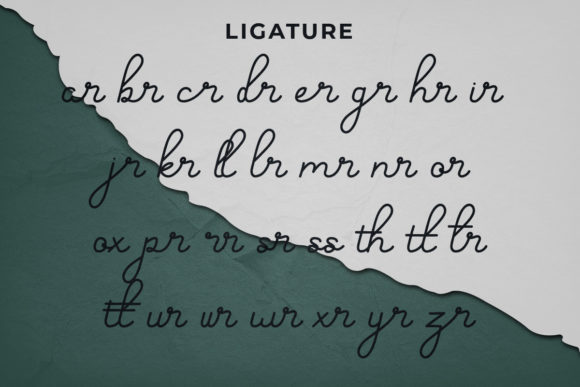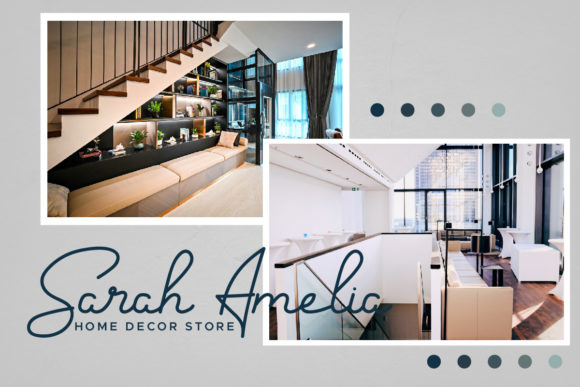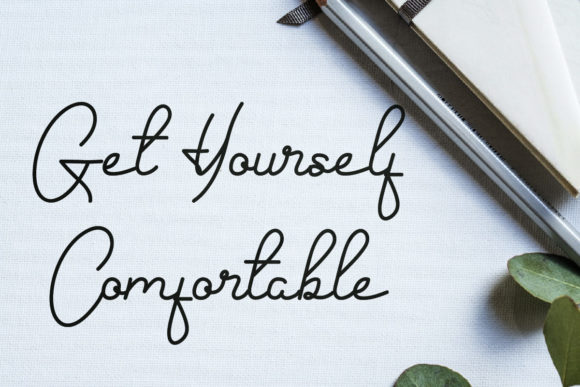
Adding a Personal Touch with Hand Signature Font
Have you ever been inspired by a beautiful handwritten note or a personal letter? The way the words flow effortlessly, creating a sense of intimacy and warmth, is truly captivating. This is exactly what the Hand Signature Font aims to capture – the elegance and uniqueness of a handwritten signature.
This beautiful, flowing handwritten font is designed to add a personal touch to your designs. With its delicate and well-balanced characters, it’s perfect for a wide range of applications, from invitations and greeting cards to digital products and marketing materials.
What makes Hand Signature Font truly valuable for designers is its ease of use. PUA encoded, it allows you to access all of the glyphs and swashes with ease, giving you the flexibility to create unique and customized designs that reflect your personal style.
Hand Signature Font Key Features
- Unique Characteristics: This font features a unique, handwritten style that mimics the look of a genuine signature, making it perfect for personal and professional use.
- Font Style: Hand Signature Font offers a range of styles, including bold, italic, and regular, allowing users to customize their signatures to suit their preferences.
Hand Signature Font Review
Overall, I think Hand Signature Font has a lot of potential, but it’s not without its quirks. Here’s what works well:
- ✨ The font’s unique, handwritten feel is perfect for creative projects that need a touch of personality.
- ✨ The font is highly customizable, with a wide range of options for adjusting the style and layout.
- ✨ The font is compatible with most popular design software, including Adobe Creative Cloud and Canva.
However, there are a few limitations that might be a deal-breaker for some designers:
- ⚠️ The font can be a bit too whimsical for more formal or professional projects, and may not be suitable for corporate or business applications.
- ⚠️ The font’s handwritten feel can make it difficult to read at smaller font sizes, especially for older users or those with vision impairments.
- ⚠️ The font’s customization options can be overwhelming, especially for designers who are new to font customization.
Overall, I think Hand Signature Font is a great choice for designers who want to add a touch of personality to their projects. However, it’s not a one-size-fits-all solution, and designers should carefully consider their project’s needs and audience before using this font.
To get the most out of the Hand Signature Font, experiment with different font sizes, styles, and effects to create a unique and personalized signature.
The Hand Signature Font is commonly used for:
- Creating digital signatures for documents and emails.
- Designing business cards and letterheads.
- Adding a personal touch to social media profiles and websites.
Alternatives to Hand Signature Font
Great Vibes is a beautiful, cursive script font that can be used for various design purposes. It’s ideal for invitations, wedding designs, and other creative projects where a touch of elegance is required.
Compared to Hand Signature Font, Great Vibes has a more polished and refined look, making it suitable for formal designs. While Hand Signature Font has a more casual, handwritten feel, Great Vibes is better suited for projects that require a touch of sophistication.